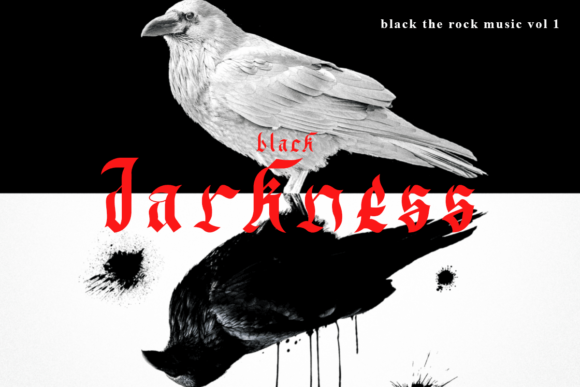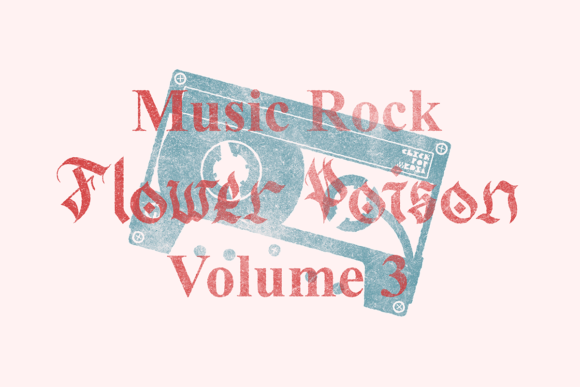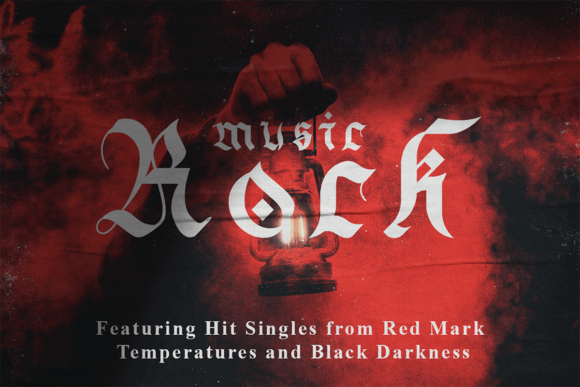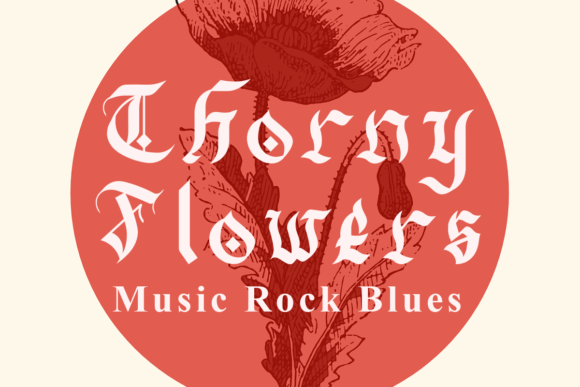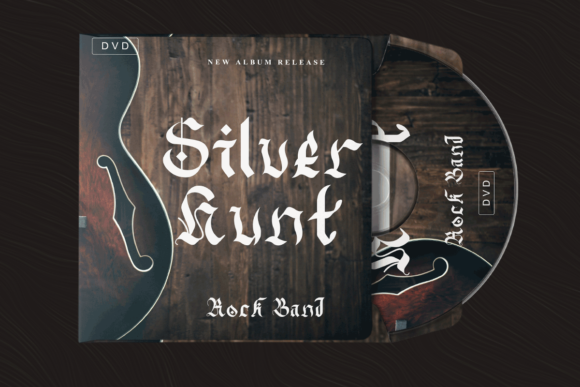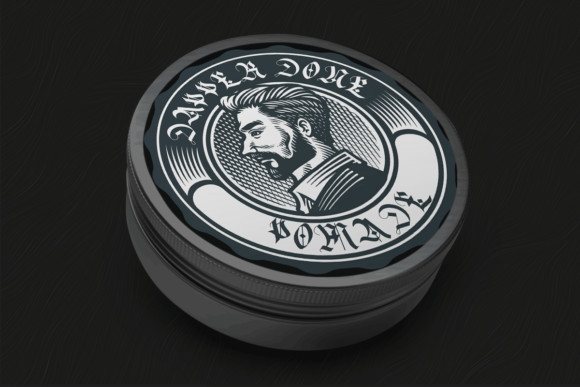
Introduction to Dark Alley Font
You’re huddled in a dimly lit studio, surrounded by scraps of paper, half-finished designs, and a dash of creative chaos. The clock ticks away, but you’re in the zone, pouring your heart and soul into your latest project. Suddenly, a spark of inspiration strikes – the perfect font to elevate your design from mere mortal to masterpiece. And then, it hits you: the Dark Alley Font.
This distinct and assertive blackletter font is more than just a design resource – it’s a game-changer. With its original and well-balanced letters, the Dark Alley Font is a high-quality addition to any creative project. Whether you’re working on a bold, eye-catching poster or a sleek, modern website, this font’s versatility will take your design to the next level. And the best part? It’s available for free download, making it an accessible and valuable asset for designers of all levels.
Key Features of Dark Alley Font
- High-quality font design with a unique, mysterious aesthetic, perfect for creative projects that require a dark and moody tone.
Honest Review: Dark Alley Font
I recently stumbled upon the Dark Alley Font, and I must say, it’s a great addition to any designer’s toolkit. As a fan of bold, edgy typography, I was excited to dive in and see what it had to offer.
What works well: ✨ The Dark Alley Font is incredibly versatile, making it perfect for a wide range of creative projects. From dark, gritty art pieces to sleek, modern designs, this font is sure to impress. The high quality design and transparent background make it easy to incorporate into any design.
However, I did encounter a few limitations: ⚠️ The font selection is relatively small, and I wish there were more options to choose from. Additionally, some of the letters may not render correctly on certain backgrounds, which can be frustrating.
Overall, I’m impressed with the Dark Alley Font, and I would definitely recommend it to designers looking for a high-quality, unique font. While it may not be perfect, its strengths far outweigh its limitations.
The Dark Alley Font is a high-quality design resource ideal for creative projects that require a mysterious and edgy feel. This free download offers a transparent background, making it easy to integrate into various design platforms.
The Dark Alley Font is ideal for creative projects that require a dark, edgy, or mysterious feel, such as:
- Horror movie posters
- Dark fantasy artwork
- Edgy fashion designs
- Mysterious advertising campaigns